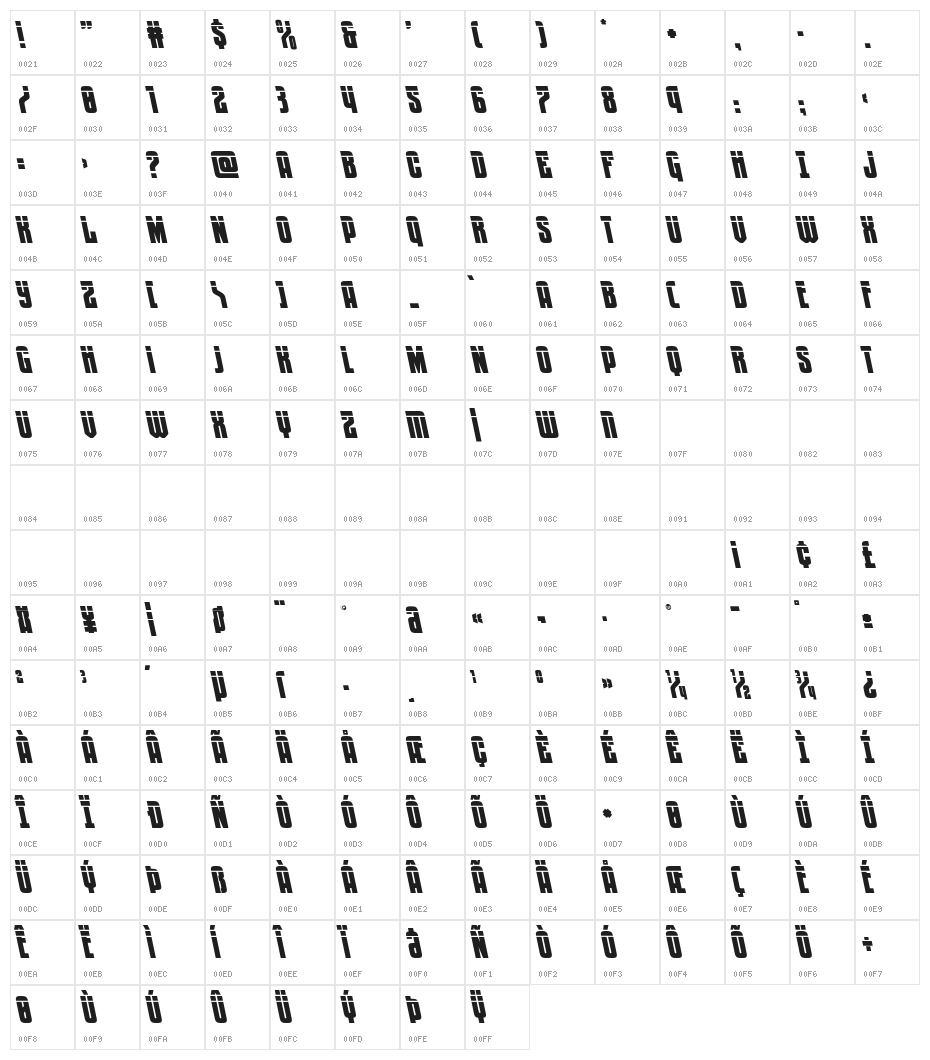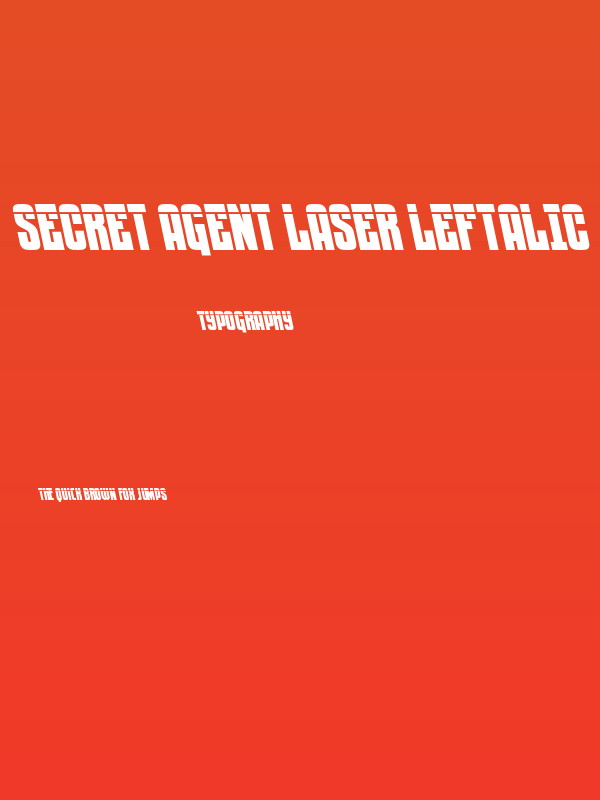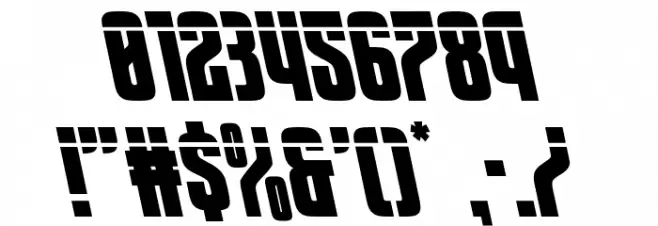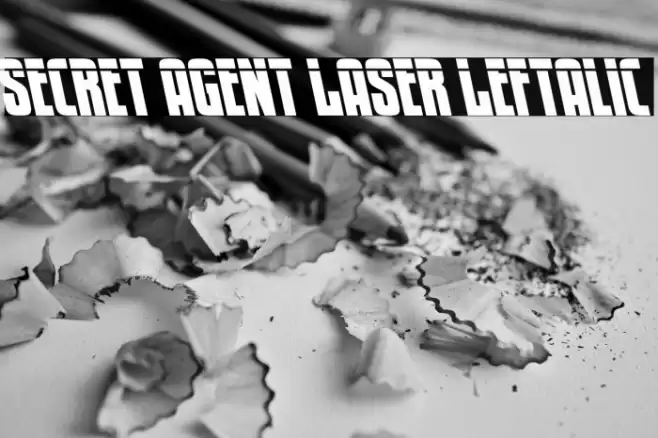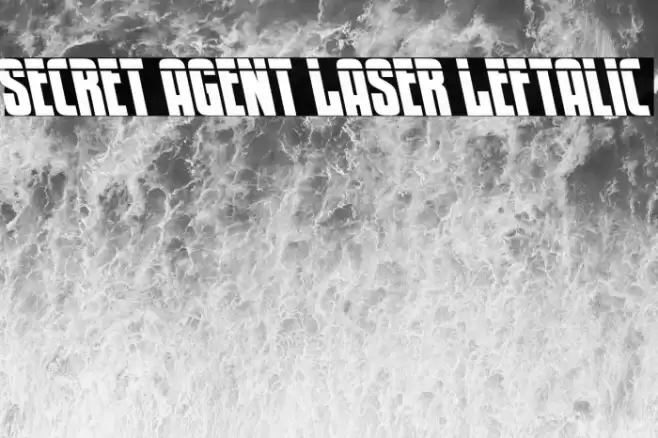
Secret Agent Laser Leftalic Font
This font features a bold and dynamic style with a distinct leftward slant, giving it a sense of motion and urgency. The characters are wide and blocky, with a strong geometric influence that adds to its futuristic and high-tech appearance. The uppercase and lowercase letters maintain a consistent weight, contributing to a cohesive and impactful look. The numbers and special characters are designed to match the boldness and angularity of the alphabet, ensuring uniformity across all text elements. This font's unique style makes it ideal for projects that require a modern and edgy aesthetic.
| Proposed Projects | Ideal for use in movie posters, video game titles, tech branding, and any project requiring a modern, high-energy look. |